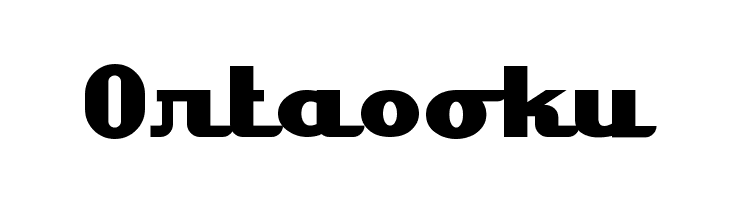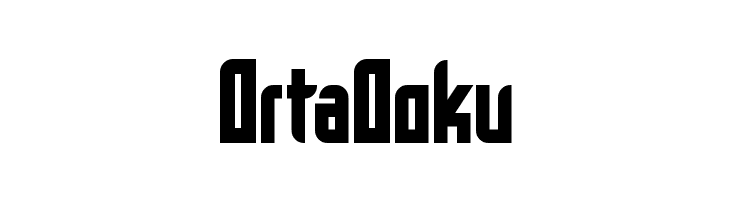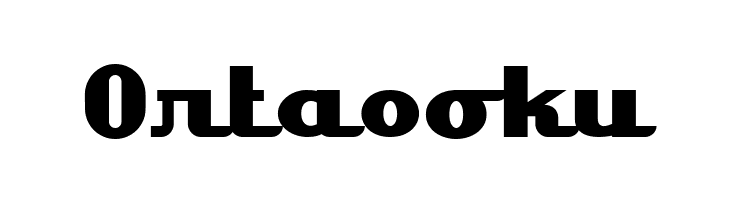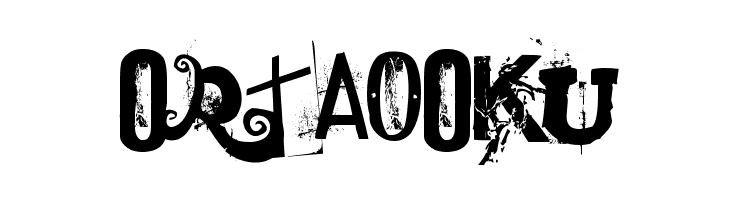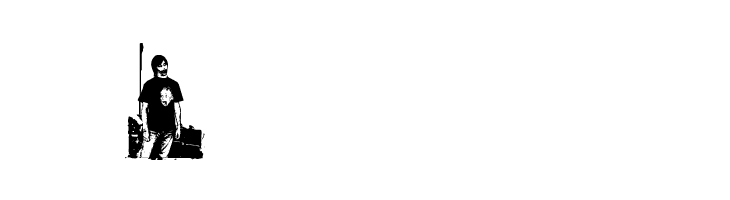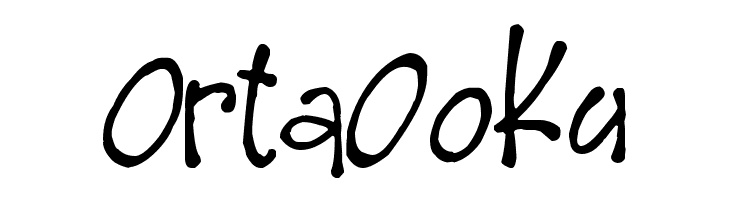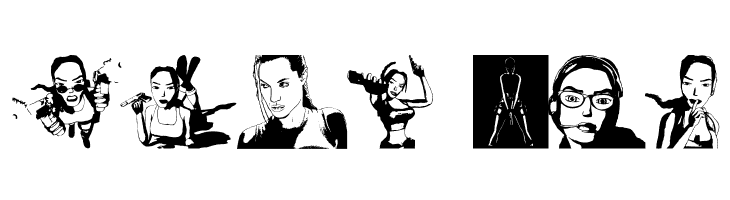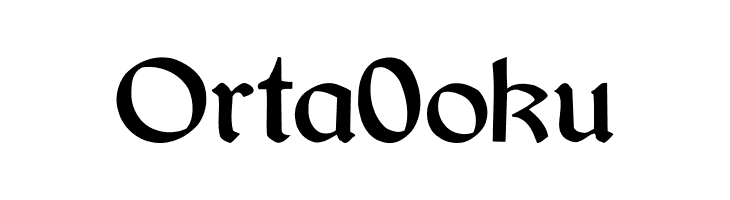
• Lakeshore Drive NF
A bold, geometric font with a vintage yet modern appeal.
• LakeshoreDriveNF
A bold, vintage-style font with rounded edges and strong visual impact.
• LandAnimals
Bold animal silhouette icons with consistent solid fill.
• LandesFraktur
( Fleisch )
An ornate Blackletter font with intricate, angular letterforms and historical elegance.
• Lara Croft Tomb Raider
• LaReynaCatalinaNF
A bold, geometric font with angular, condensed characters.
• Larger Mime
A playful, artistic handwritten font with bold, expressive strokes.
• laundromat 1967
A distressed, grunge-style font with bold, irregular letterforms and a textured appearance.
• LDC
• LDC_paraplegia